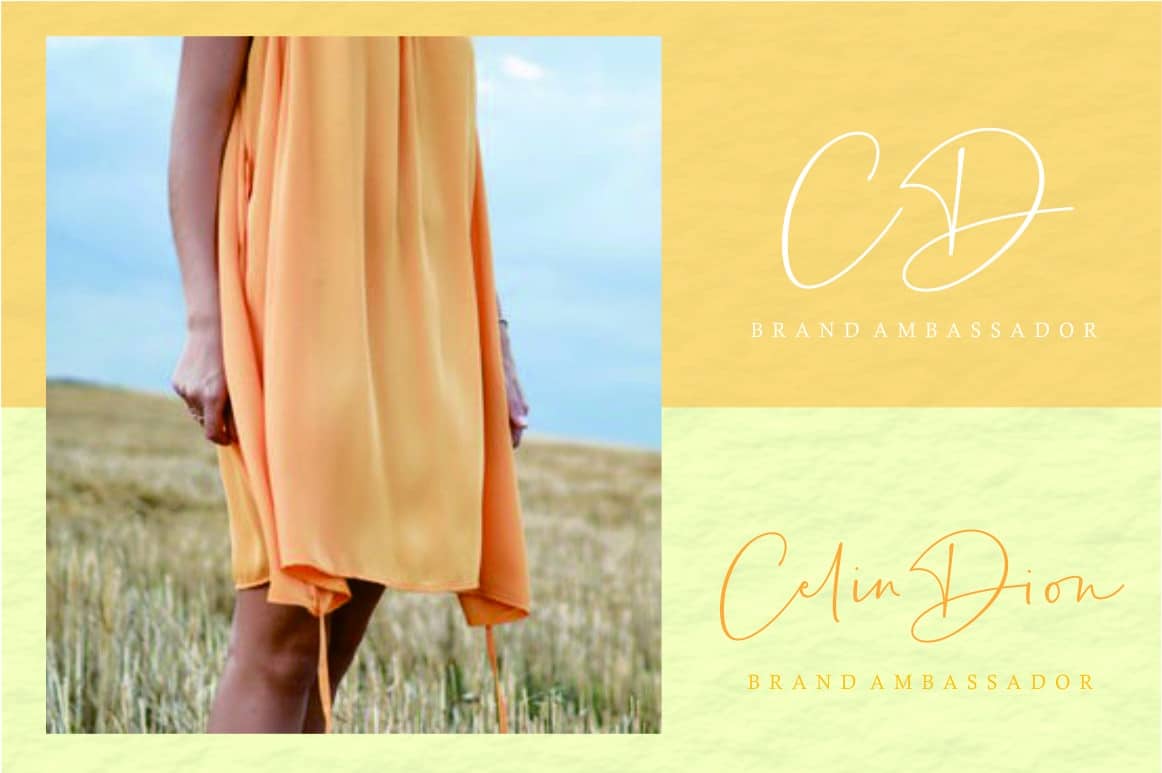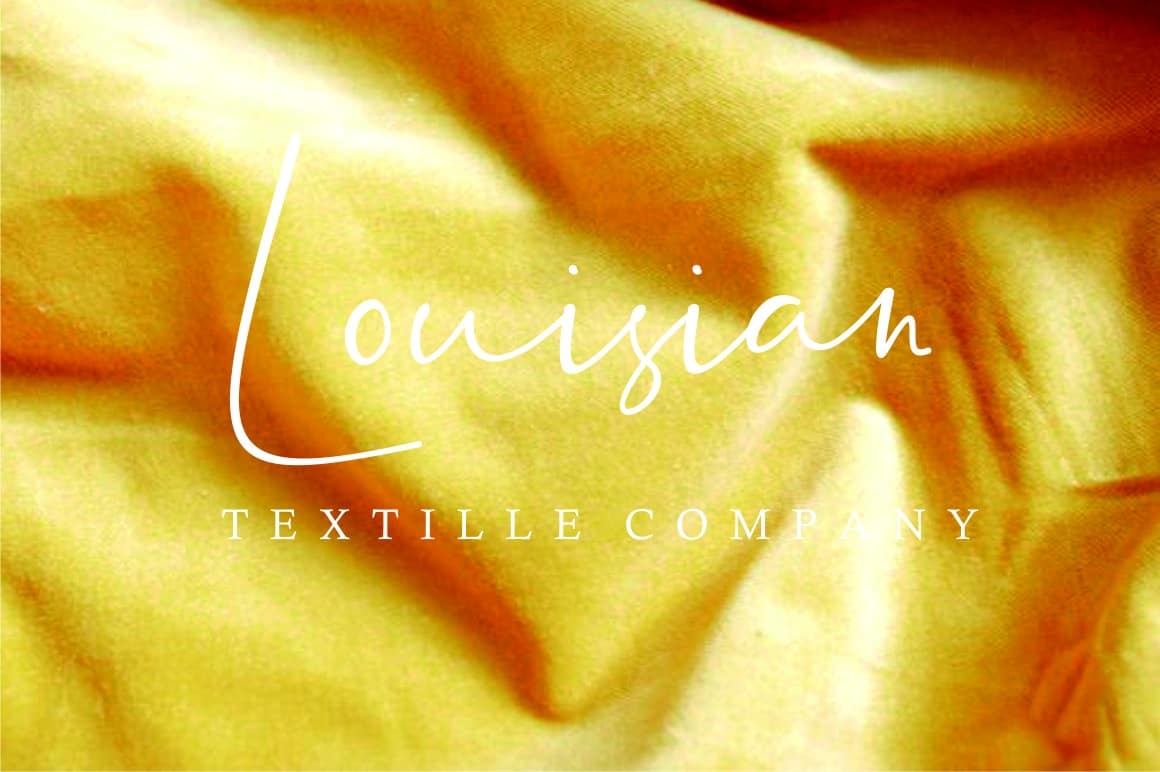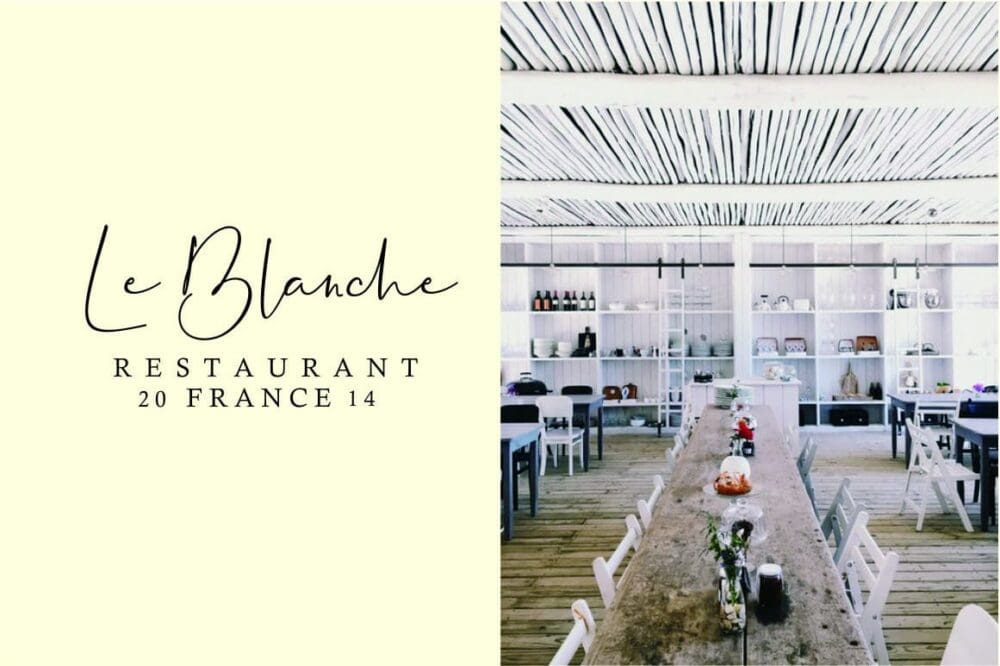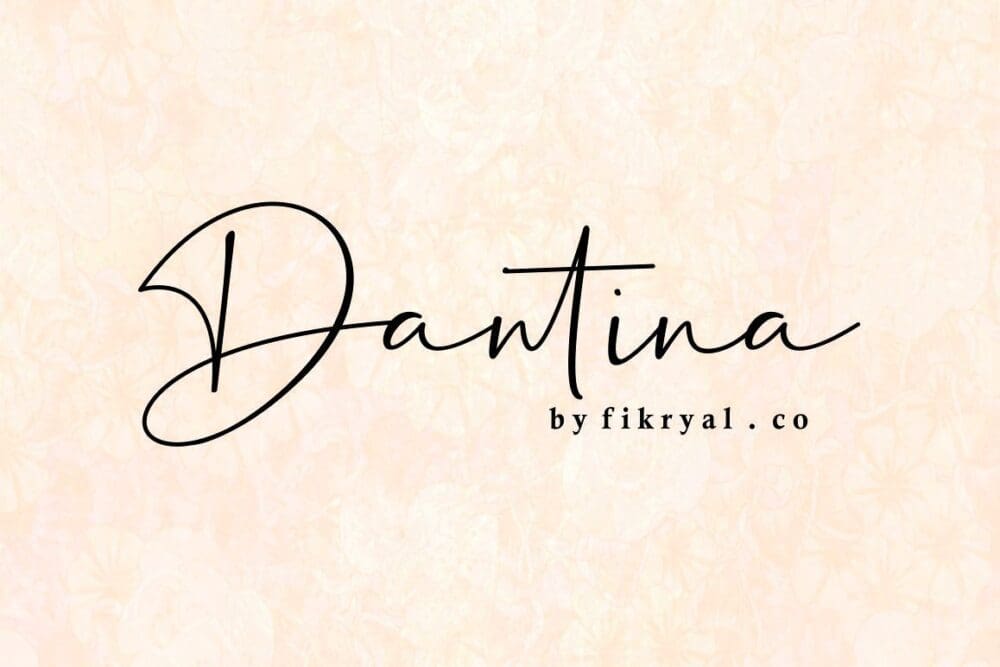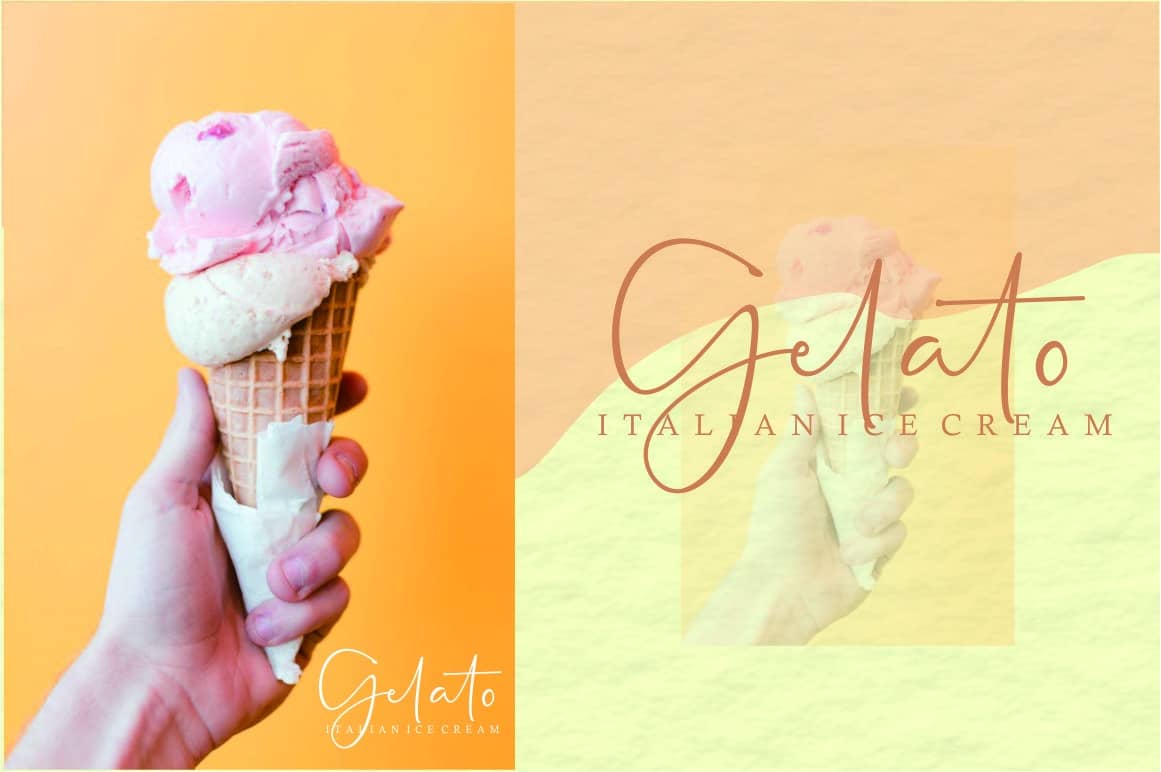
Dantina Font
Dantina – Font is a new stylish script font. Its perfect for logo, branding, tittle, social media posts, advertisements, product packaging, product designs, label, photography, watermark, special event, web design, etc.